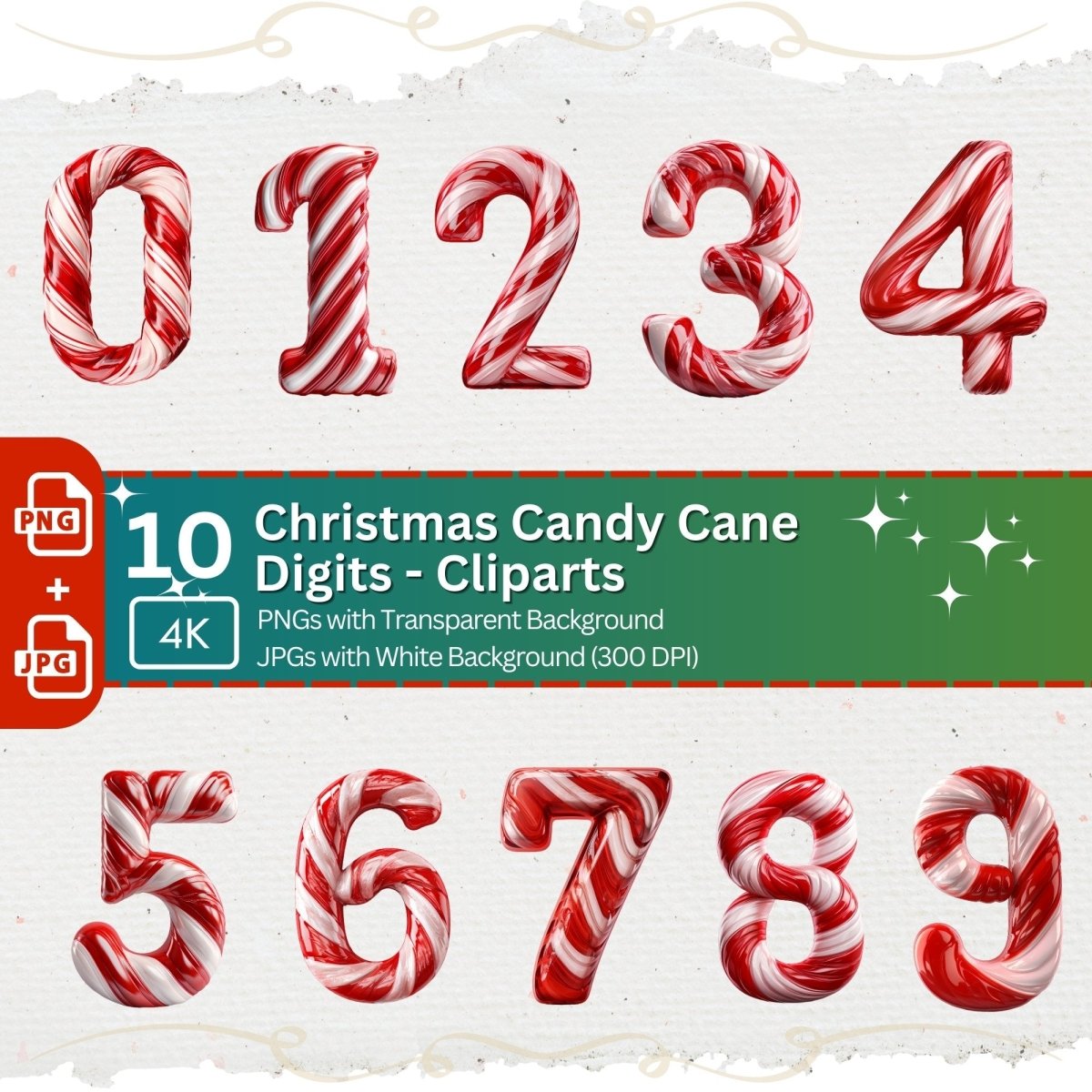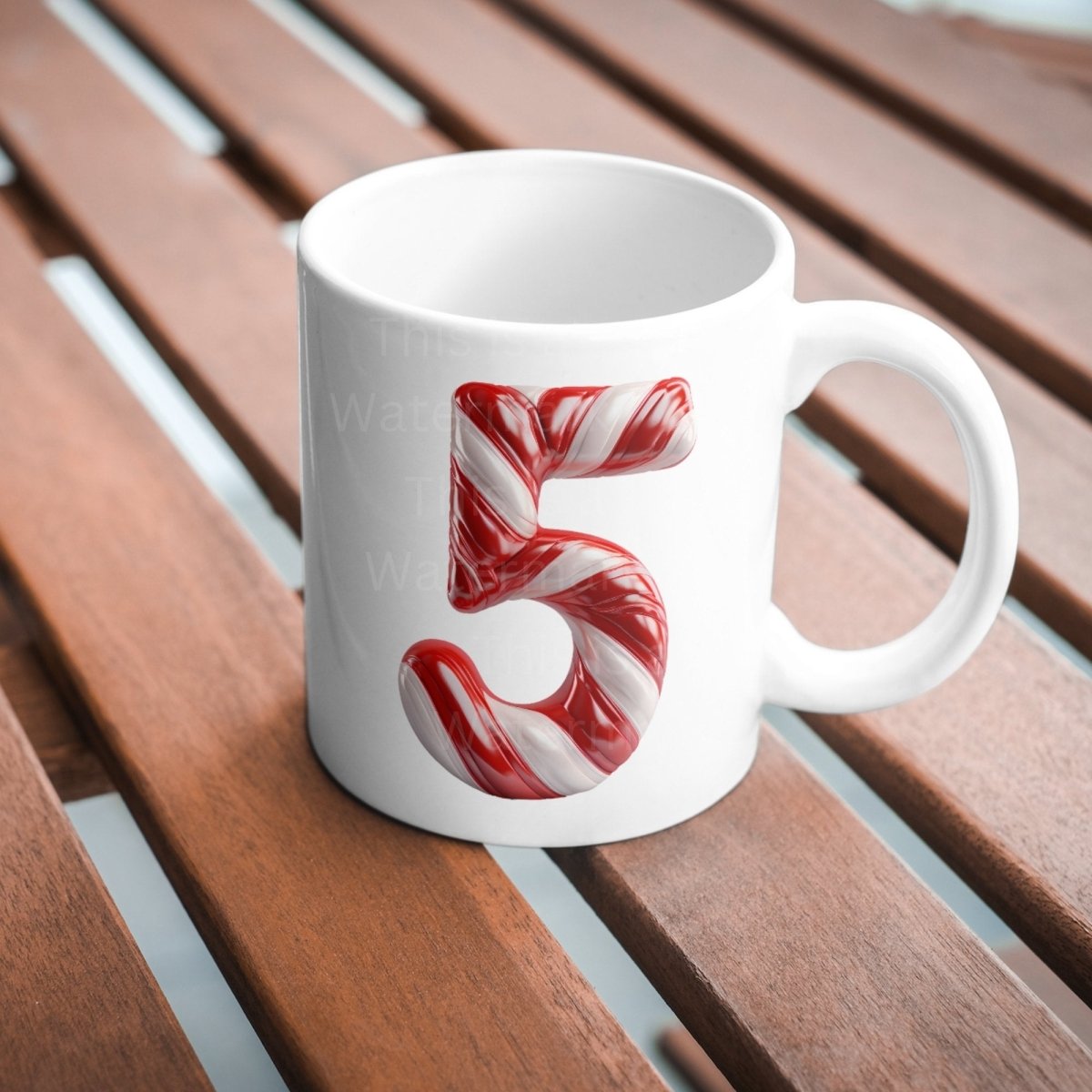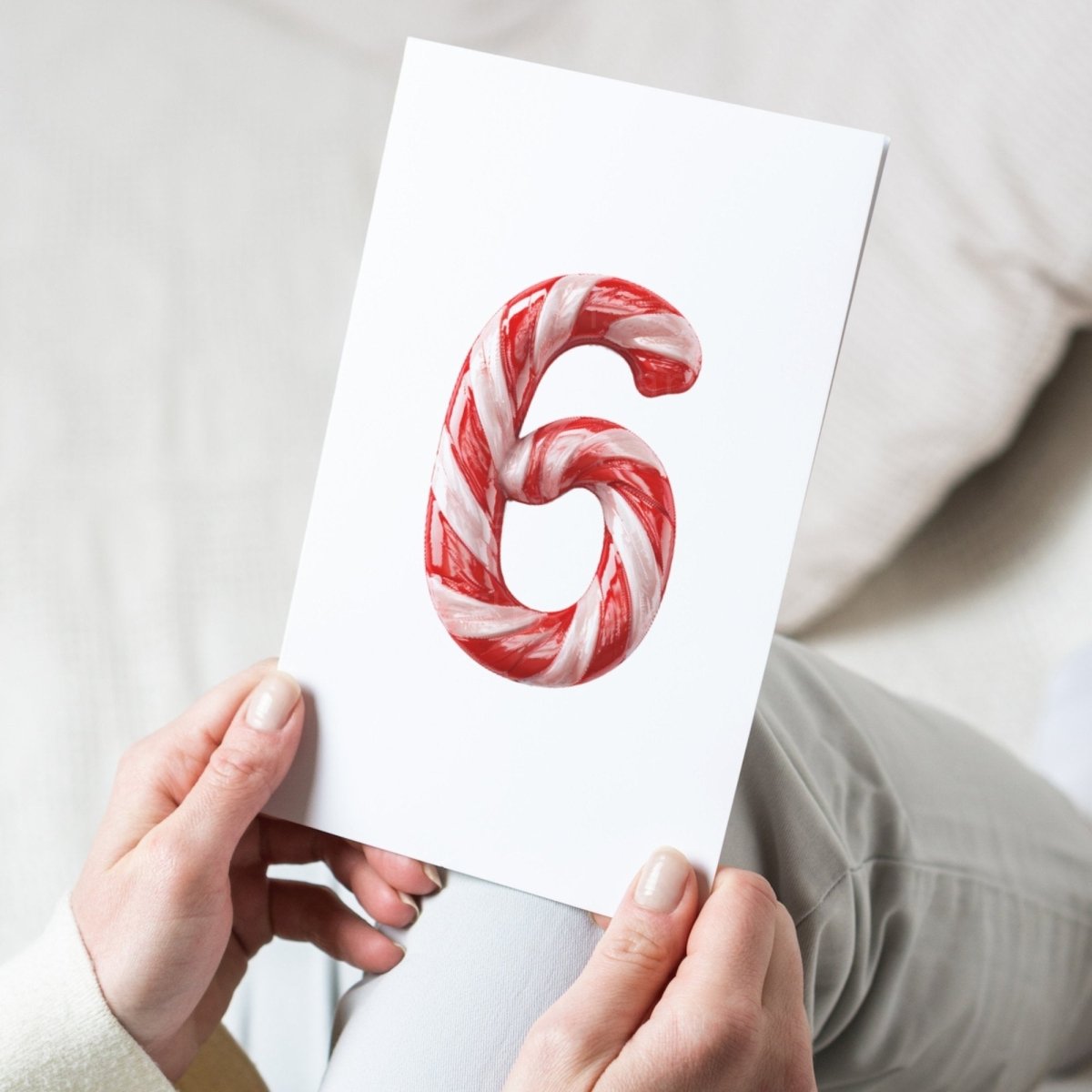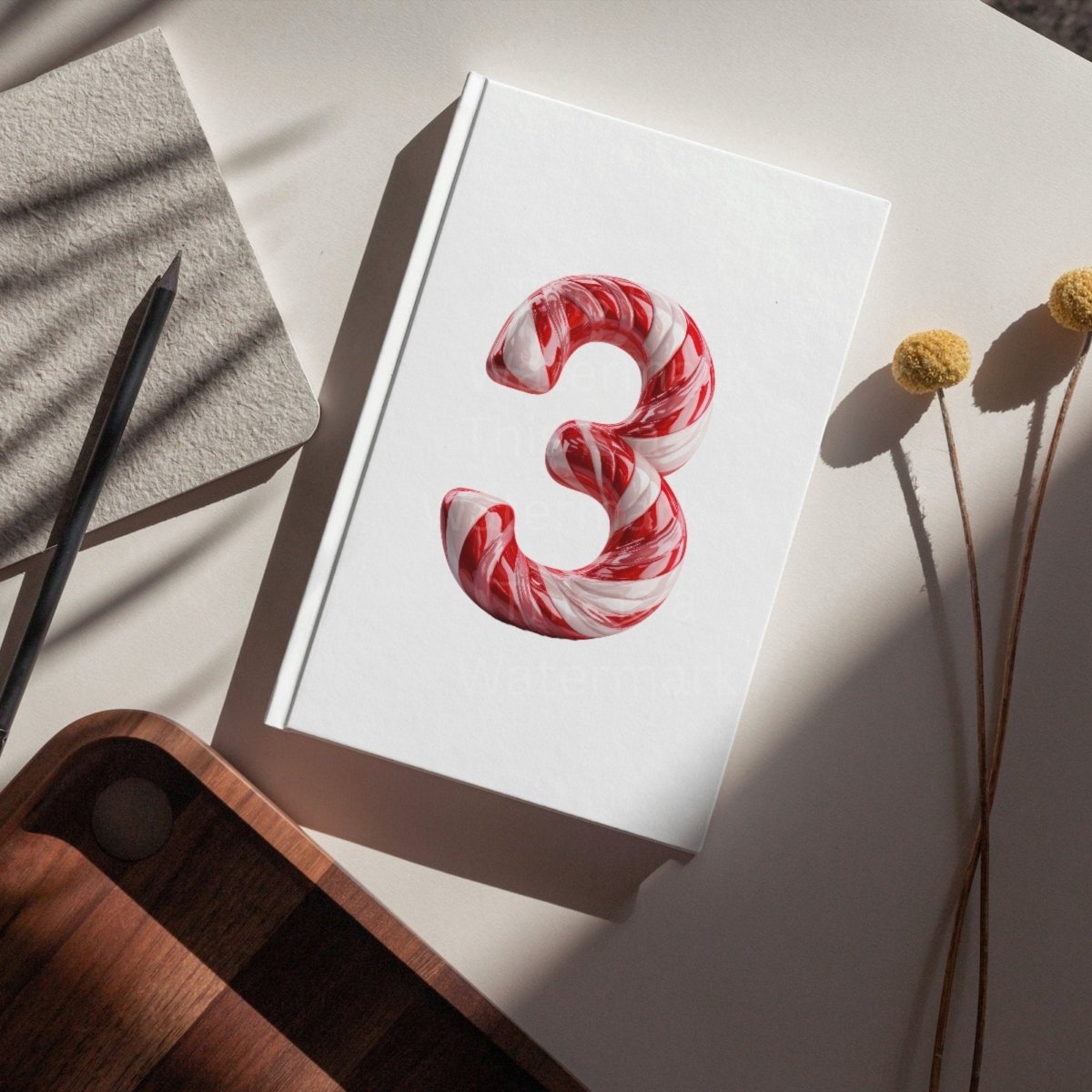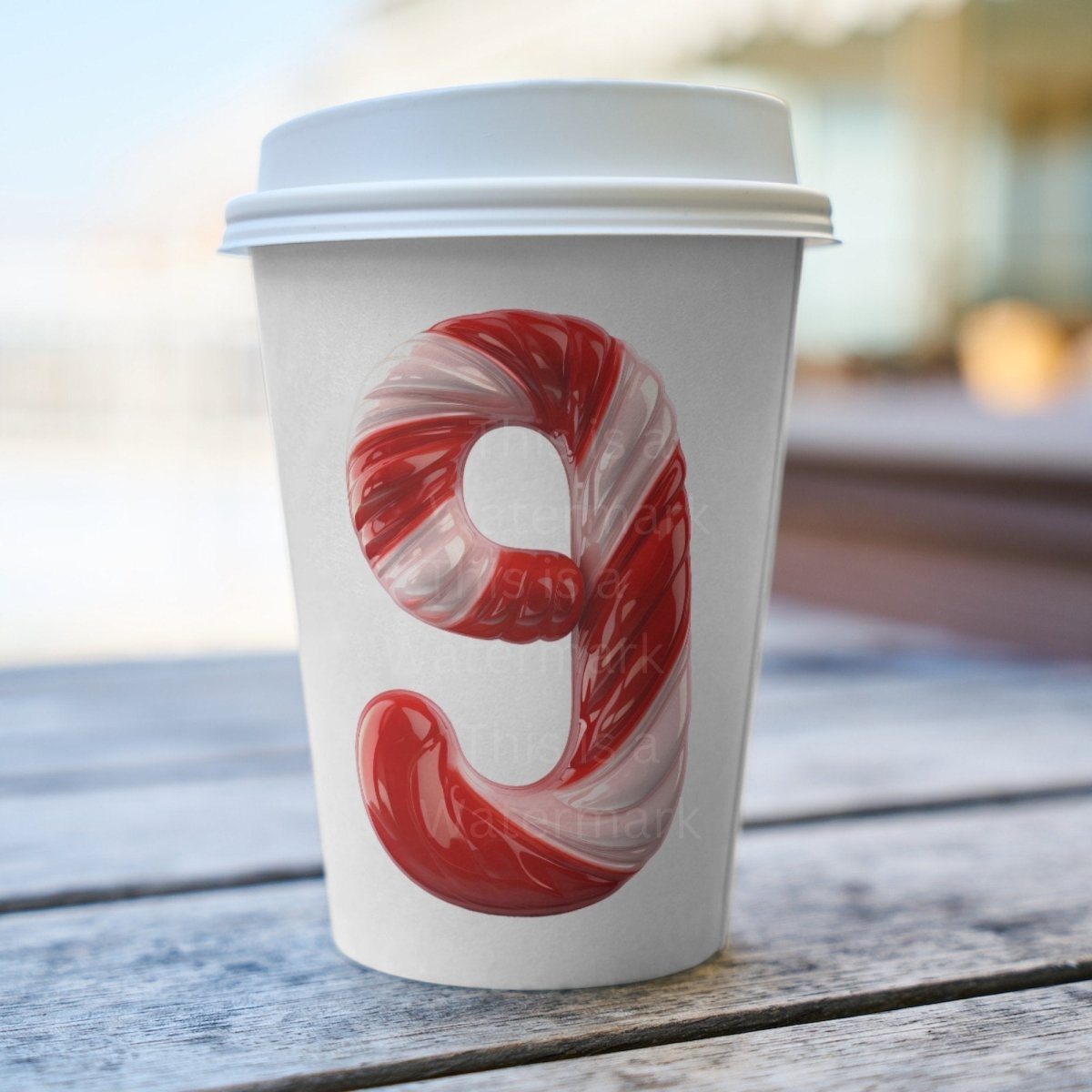
Add a sweet touch to your holiday projects with our Christmas Candy Cane Digits PNG Clipart! This set of 10 separate digits, each adorned with festive candy canes, is perfect for sublimation, crafting, and creating delightful digital designs. Elevate your creations with this charming Christmas font and spread the joy of the season! 🍬🎄✨